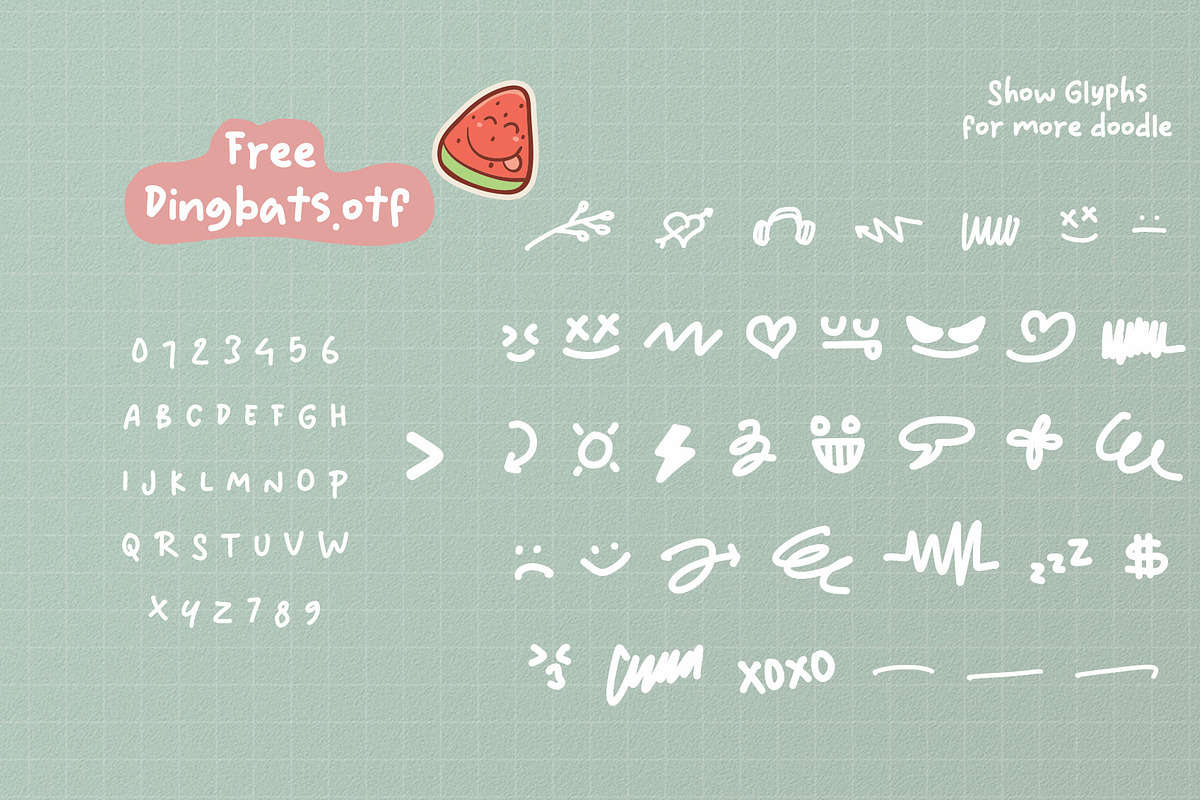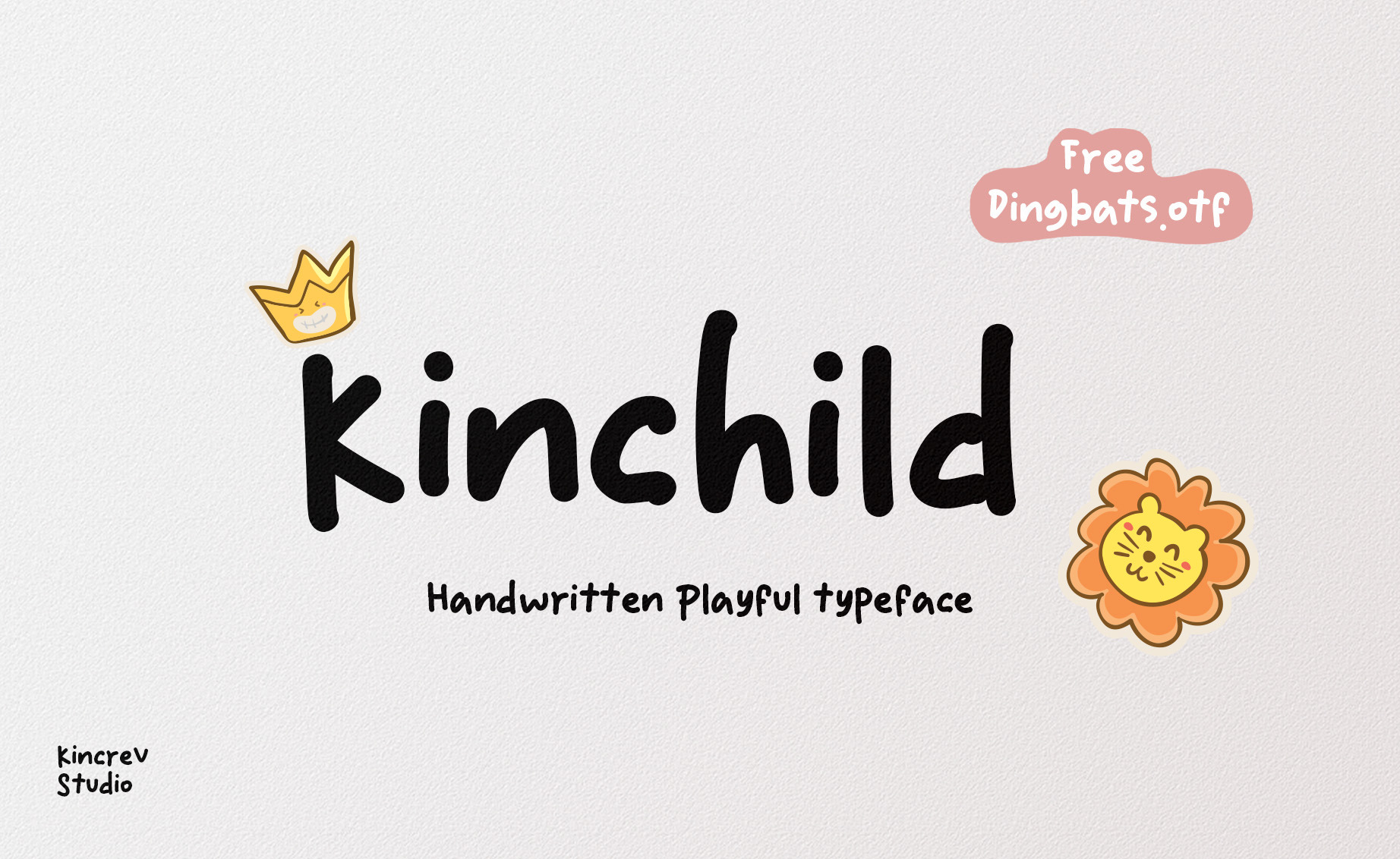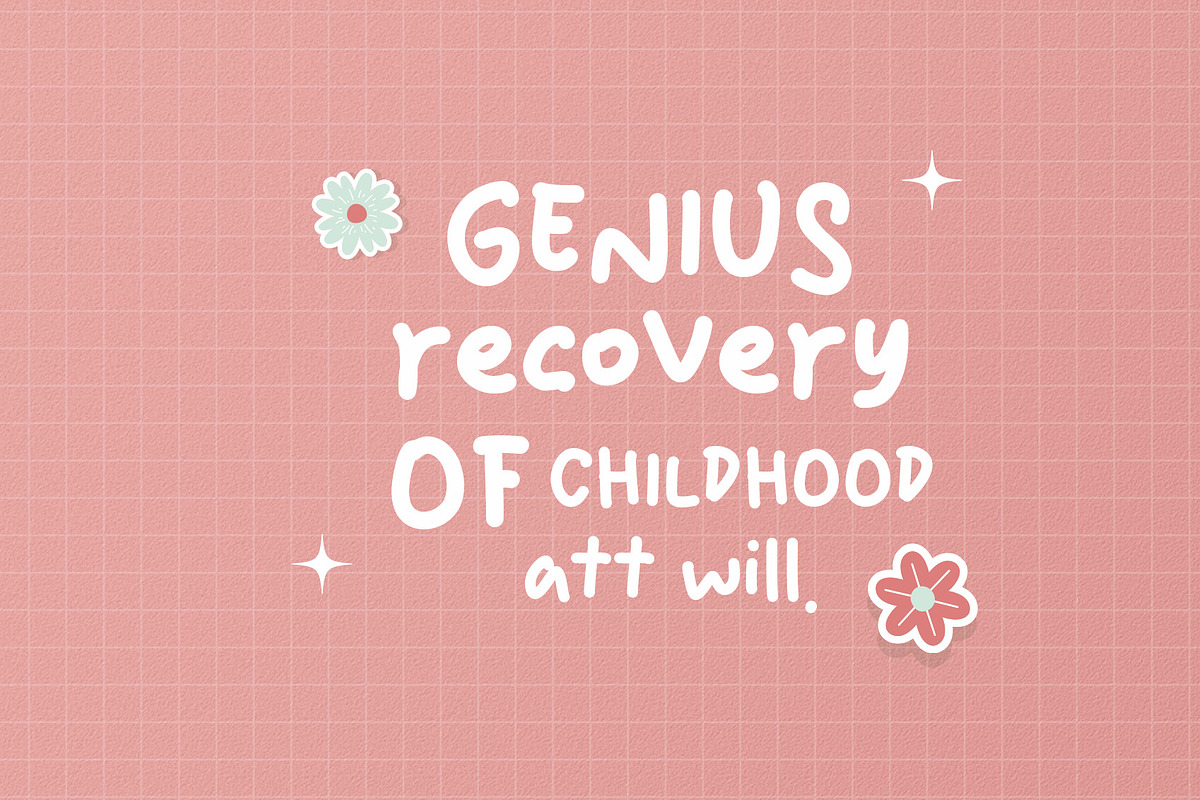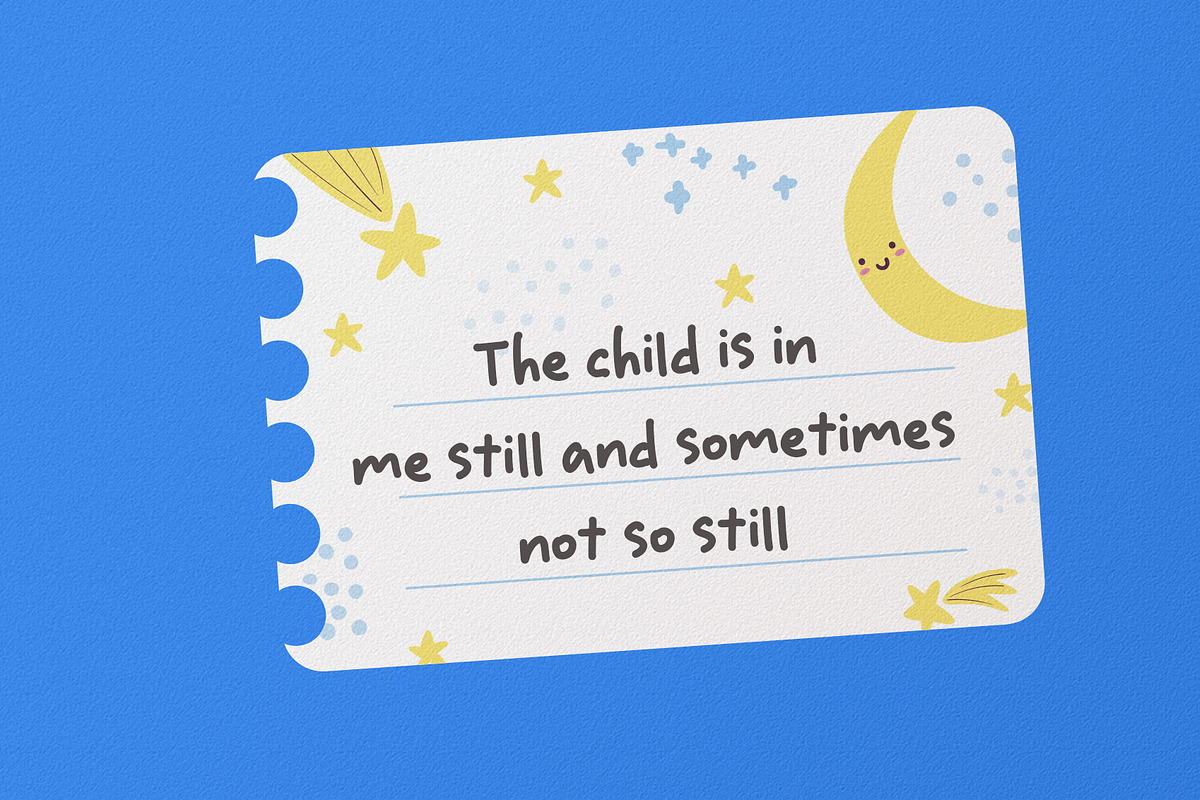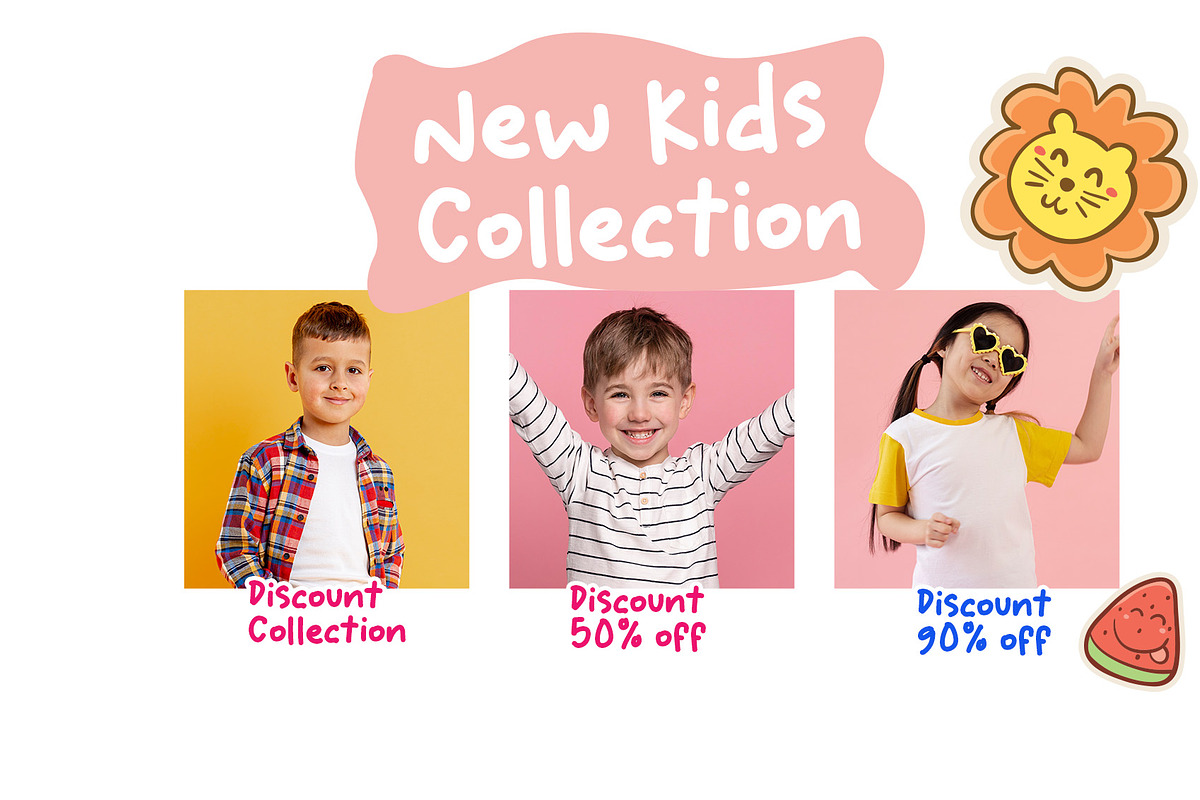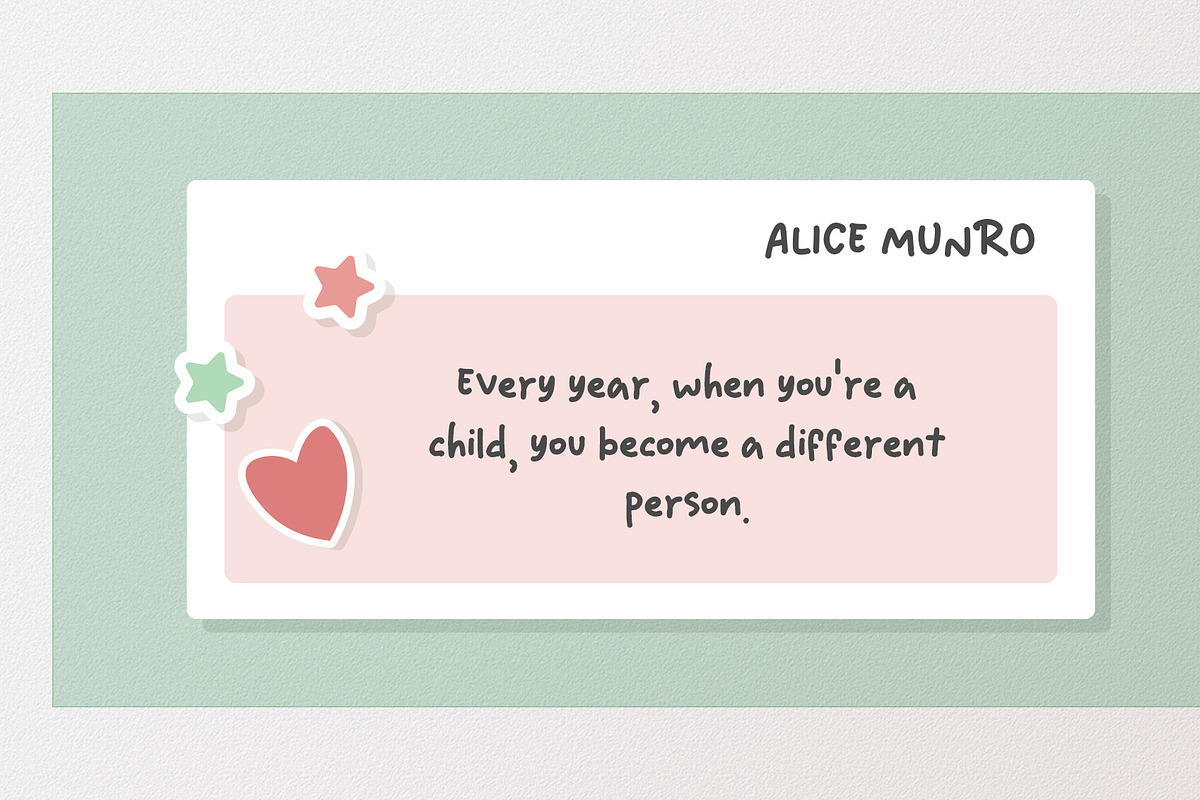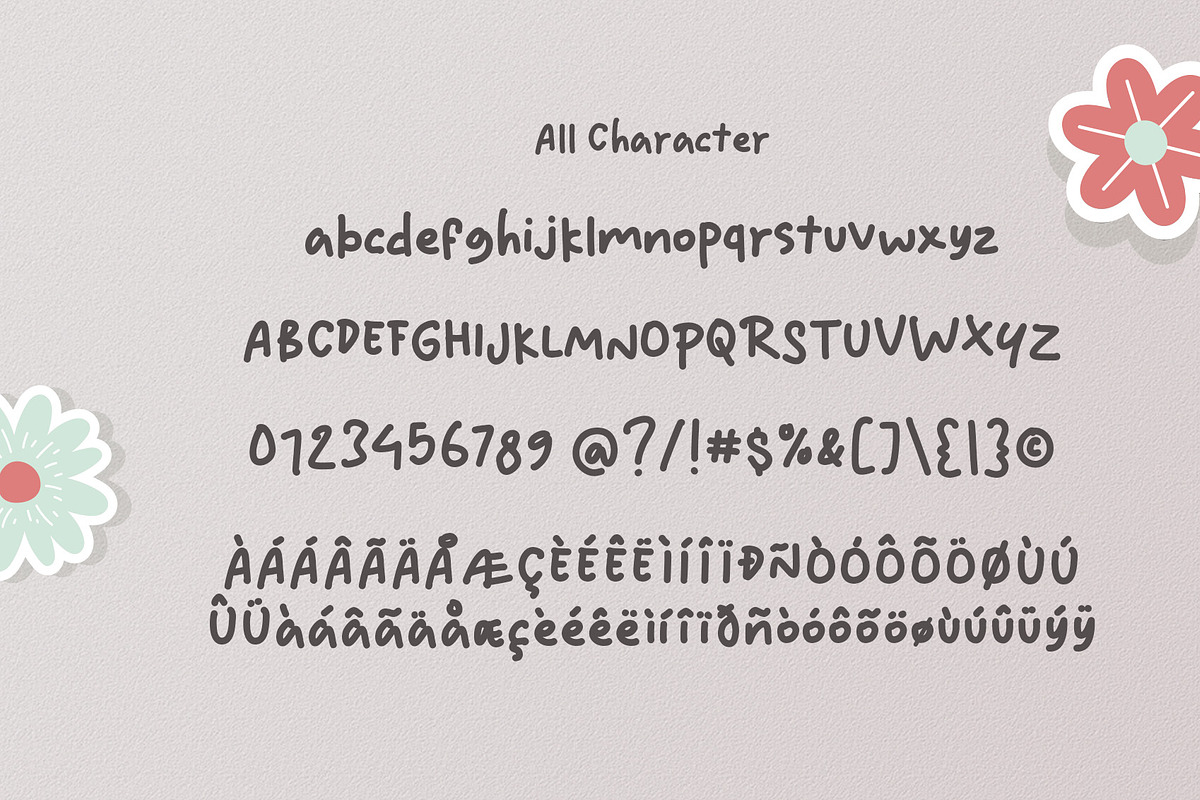
Kinchild - Handwritten Playful Font
Hello, Everyone! Ready to make your branding design outstanding? If you need to create a stylist, playful, and creative look for your business, work on a poster for an event, or whatever your projects are, Kinchild - Handwritten Playful typeface is the perfect one for you.
Kinchild, a handwriting font is font for you to get your designs with stylist, playful, and creative look. It is made in Uppercase Regular & Stylistic Alternates which are easy on the eyes and nice to look at, and easy to read. This font is designed to bring your brandings to life and add a touch of sporty modern, bold, fun and style.
Kinchild fits for any design projects, such as posters, banners, logos, book covers, album covers, quotes, invitations, greeting cards, name cards, headings, printed products, merchandise, social media, etc. Find out more ways to use this font by taking a look at the font preview.